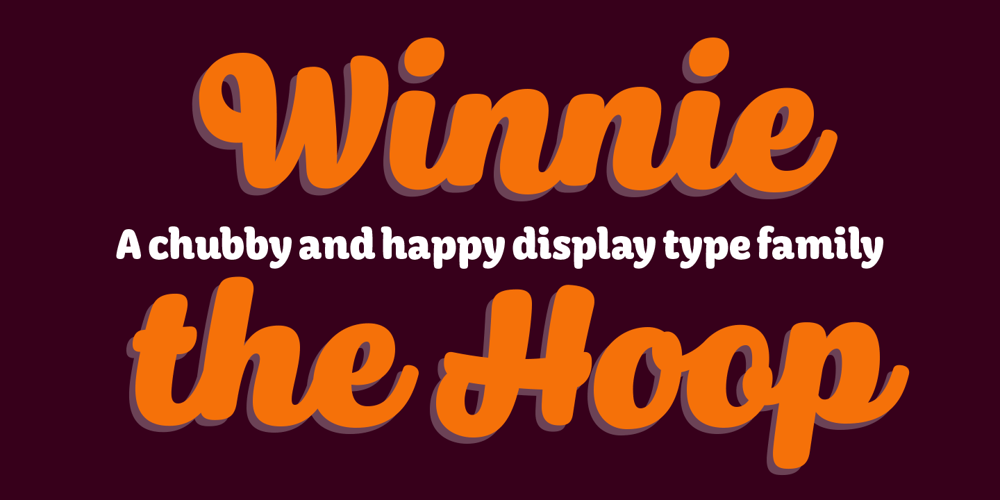
Winnie The Hoop
Winnie The Hoop font
Winnie The Hoop Font Family was designed by published by LetterMaker. Winnie The Hoop contains 3 styles and family package options. Winnie the Hoop is a bold, friendly and round display family inspired by a certain well known teddy bear. The family consists of three styles; Roman, Italic and Script, which are designed to be combined together. You can use any of the three styles as your main style and use the others to create multilayered typography that all share the same aesthetic. The typeface is well suited for branding and packaging design, advertisements, posters and even editorial design as a headline style. The Script is packed with ligatures and has Swash alternates that make it easy to customise your design. All styles include two sets of numerals.